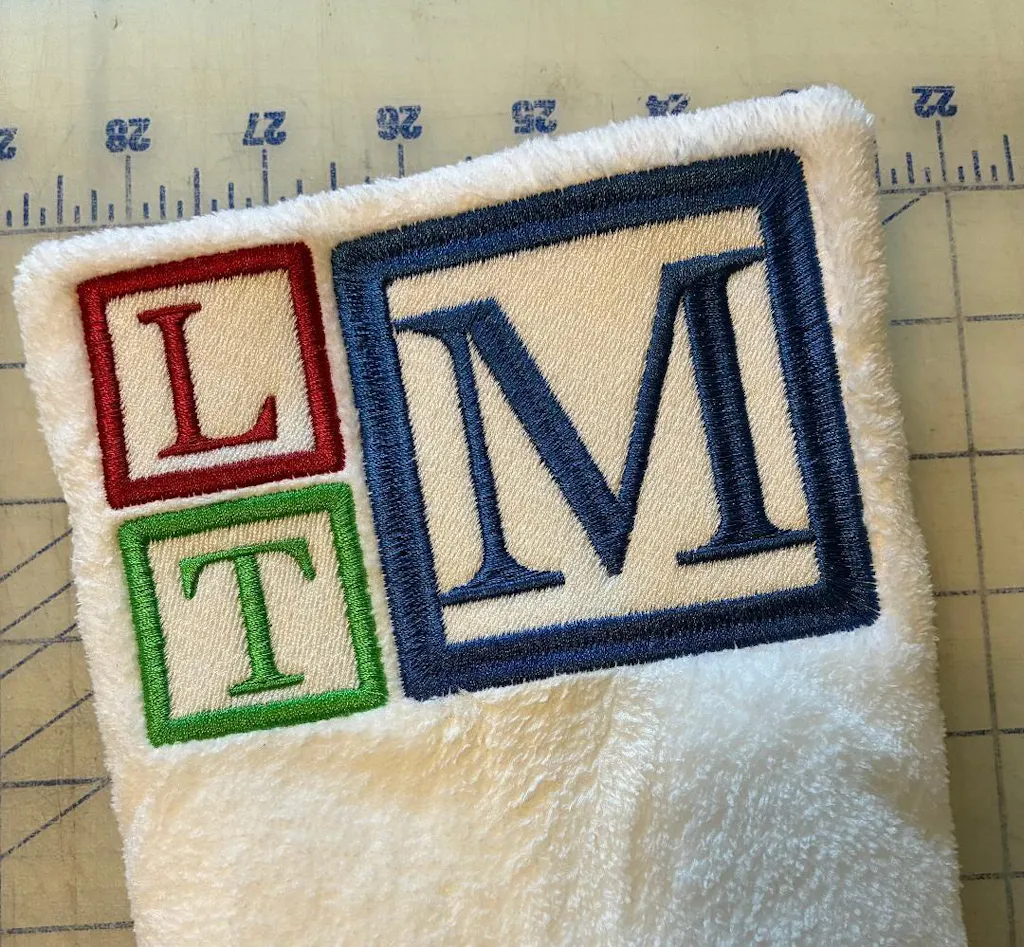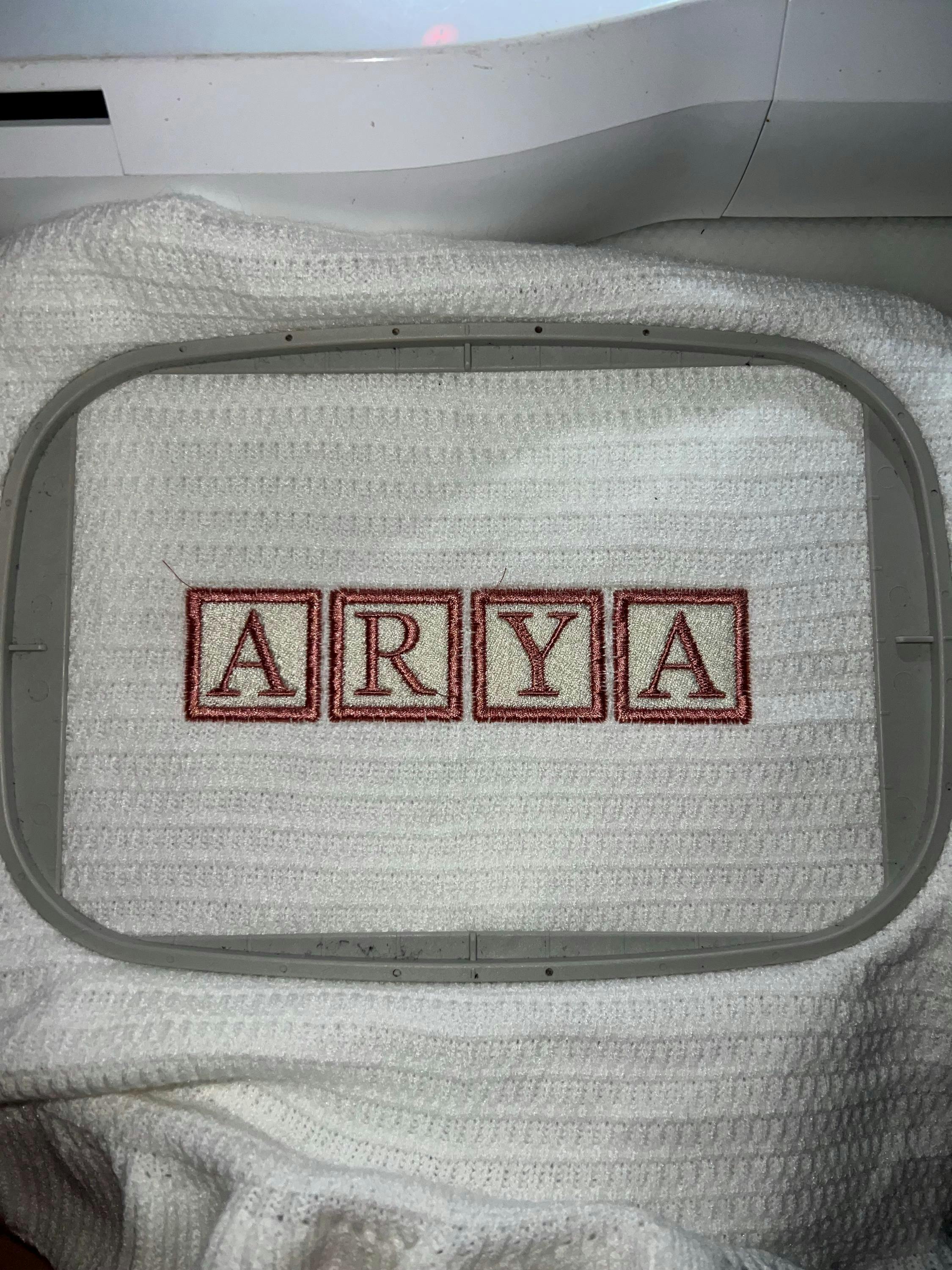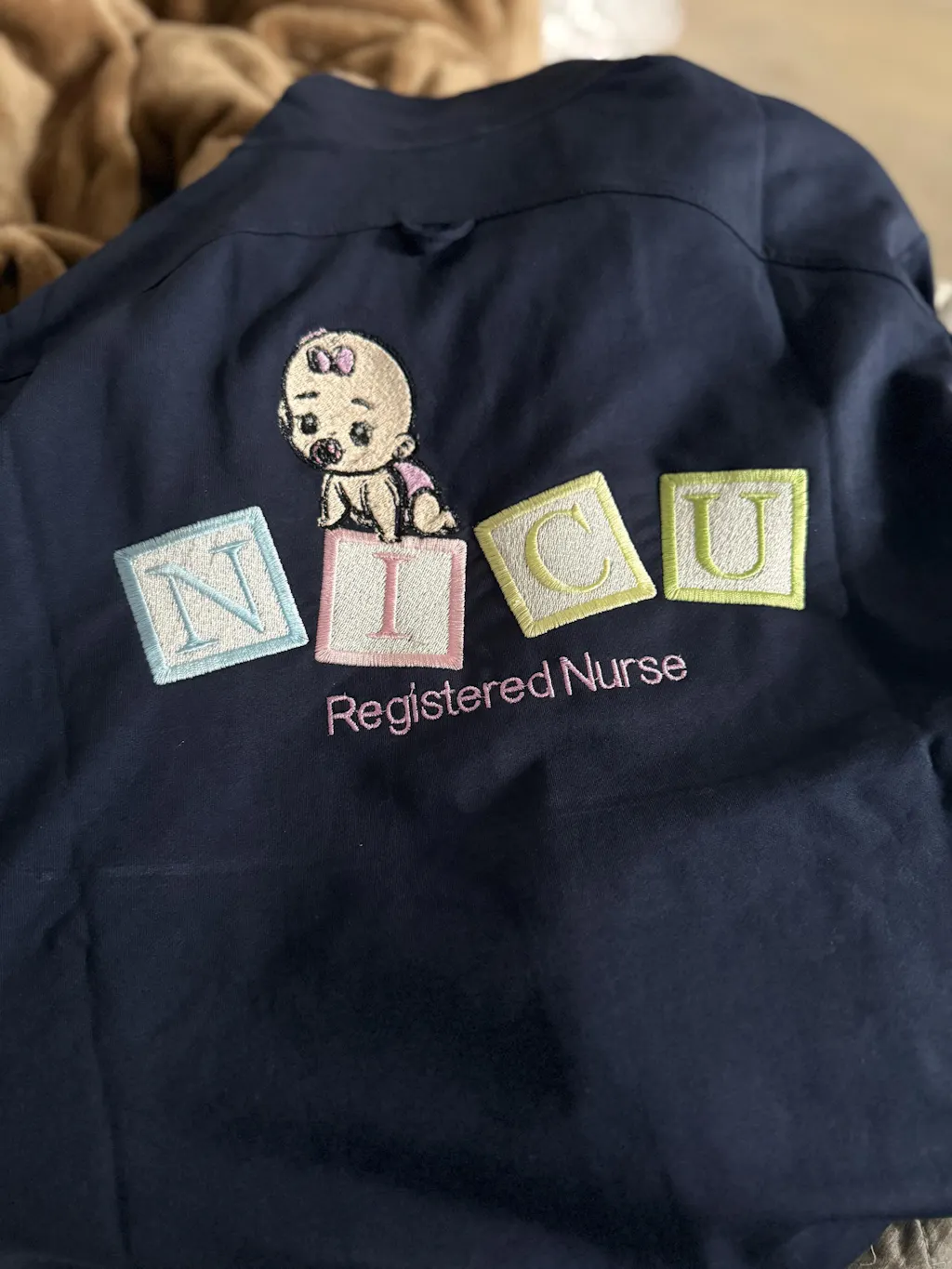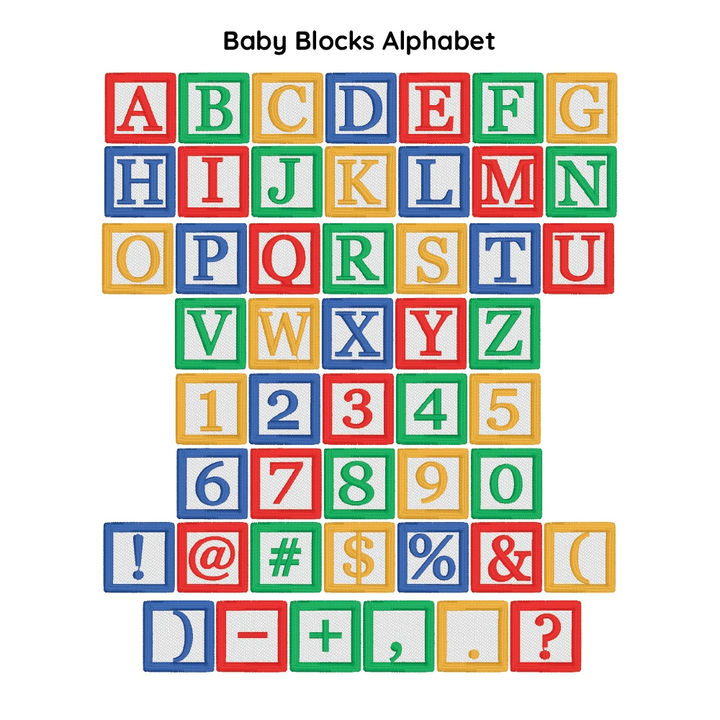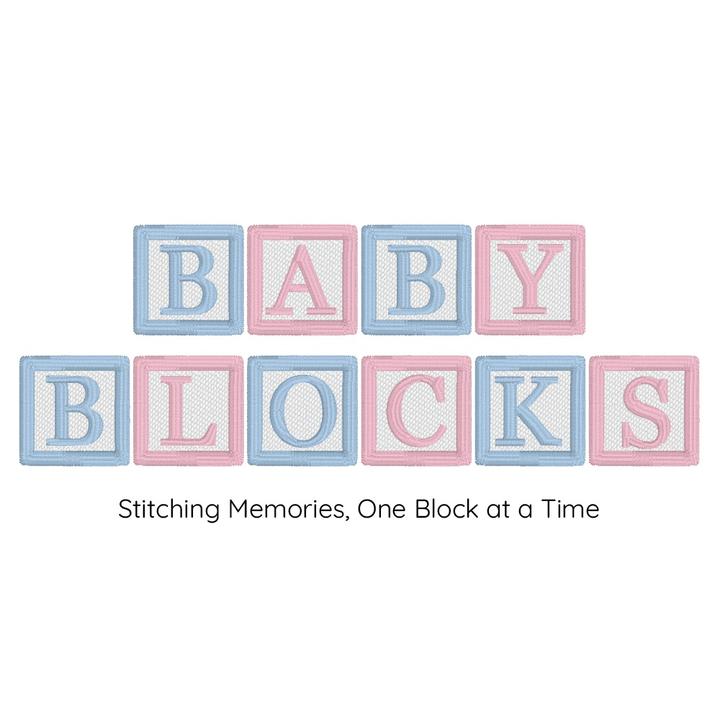
Baby Blocks Digital Font
Introducing Baby Blocks: The Ultimate Digital Embroidery Alphabet for Your Cherished Creations! 🧵🔠 Now Available in BX Fonts format!
Remember the joy and nostalgia of playing with classic children's letter blocks? We've captured that magic and transformed it into a stunning digital embroidery alphabet just for you! Baby Blocks is a delightful, handcrafted font that embodies the essence of childhood memories, designed to add charm and playfulness to all your embroidery projects.
Our Baby Blocks alphabet brings a touch of whimsy to baby blankets, clothing, and nursery decor, making every stitch a loving reminder of the innocence and wonder of early years. Each letter is meticulously crafted to resemble wooden blocks, with bold, vibrant colors, ensuring your embroidered masterpieces will stand out and be cherished for years to come.
Whether you're an experienced embroiderer or a newcomer to the craft, Baby Blocks makes it easy to create personalized gifts that will be treasured by parents and little ones alike. So, why wait? Bring warmth, nostalgia, and a touch of enchantment to your next project with Baby Blocks - the digital embroidery alphabet that rekindles the magic of childhood in every stitch! ✨👶🧸
Stitch Type: Satin Stitch & Split Satin Stitch